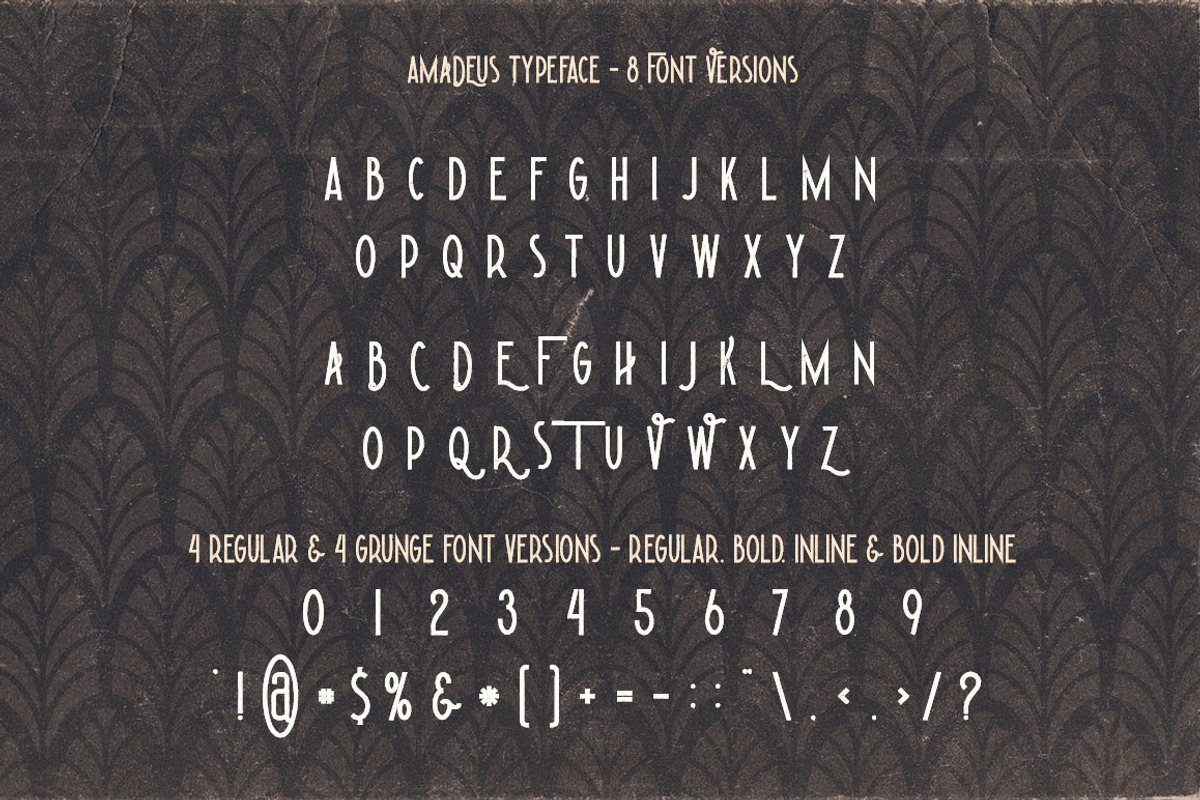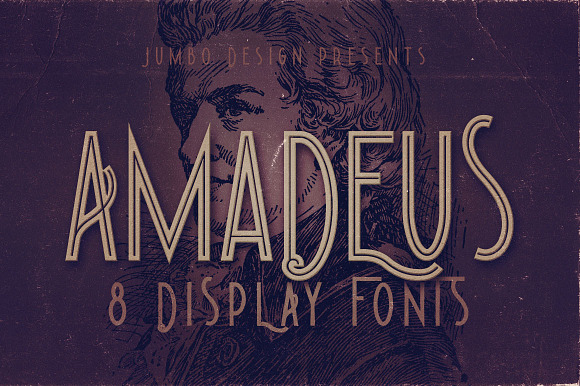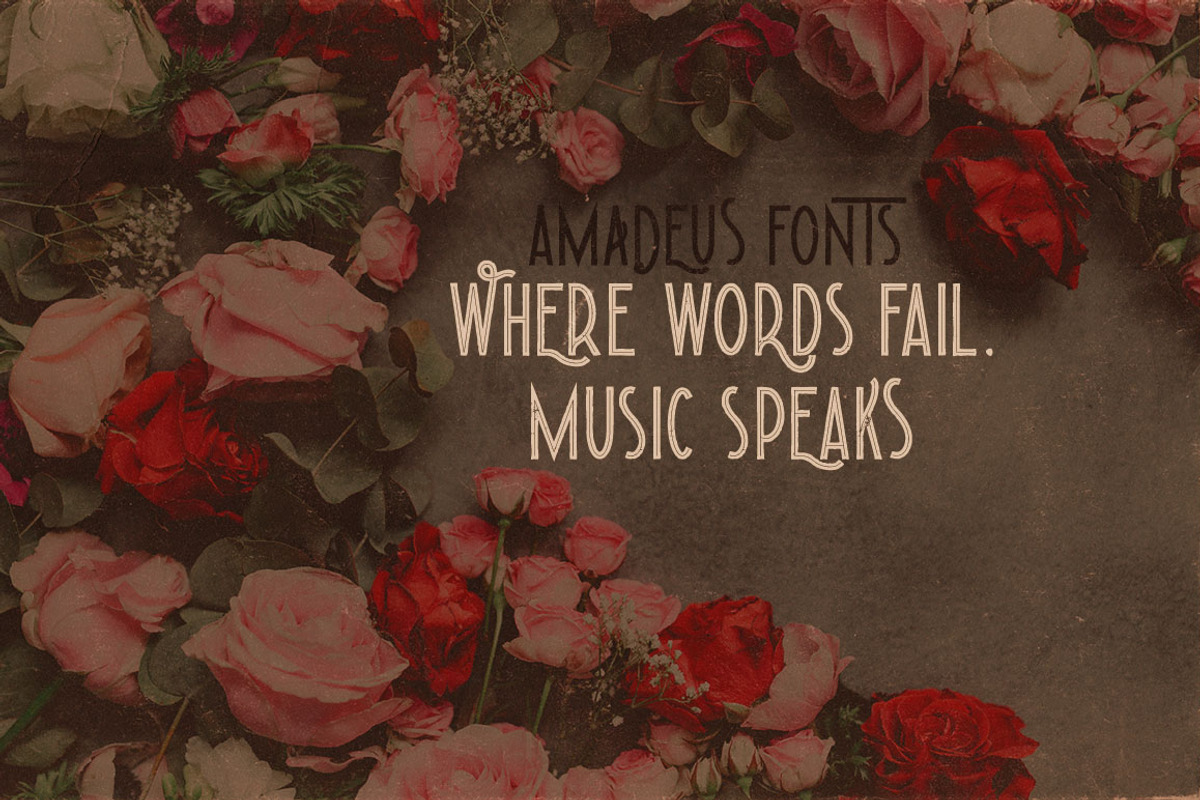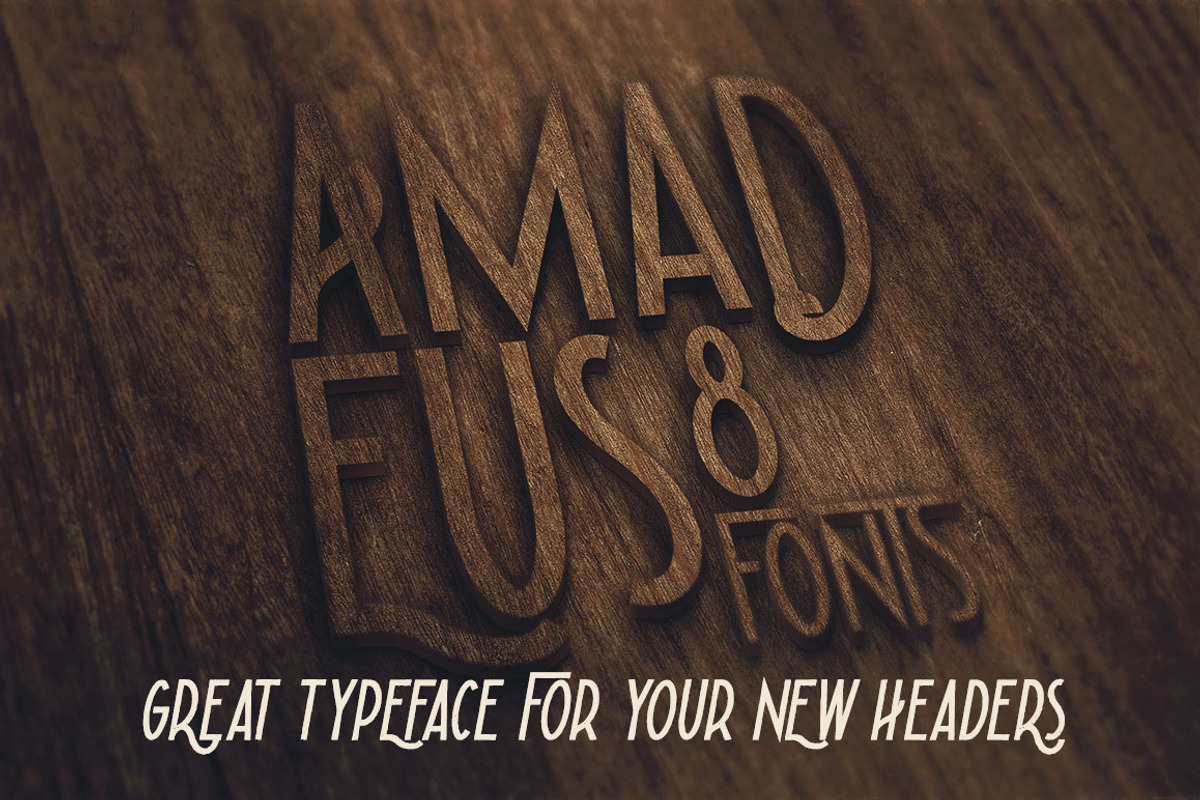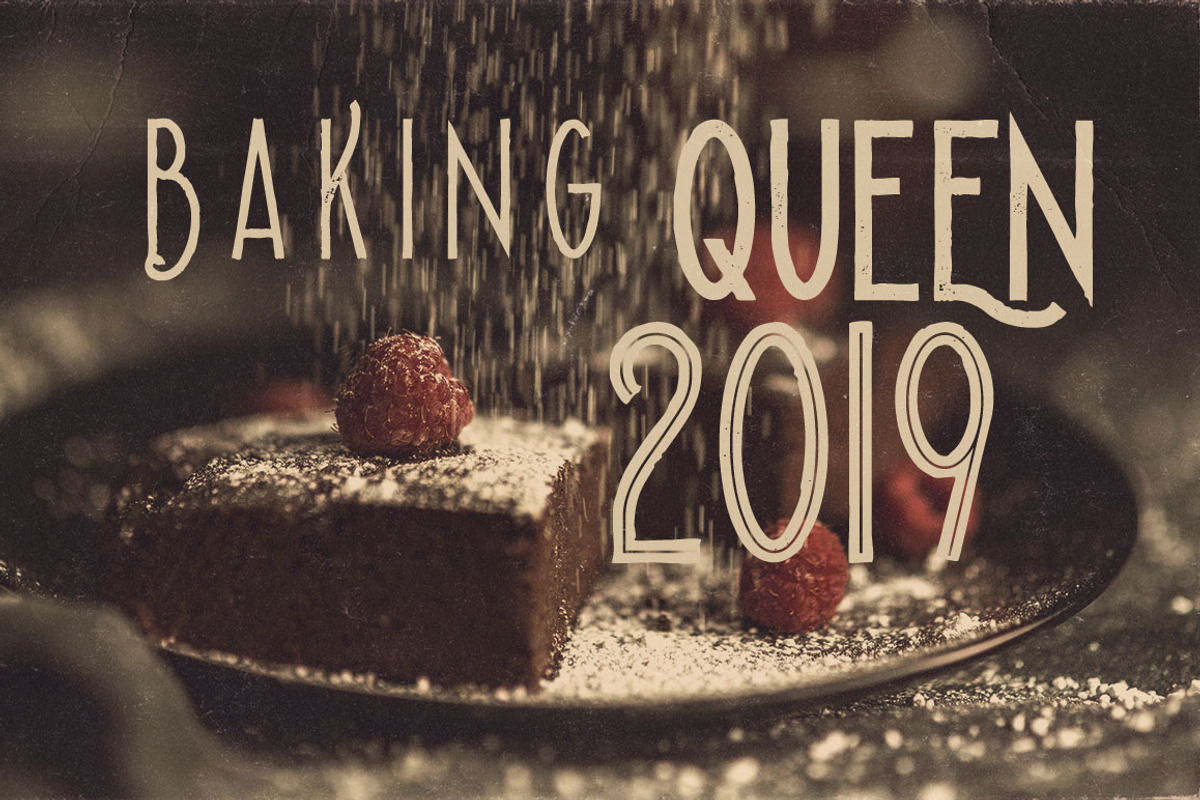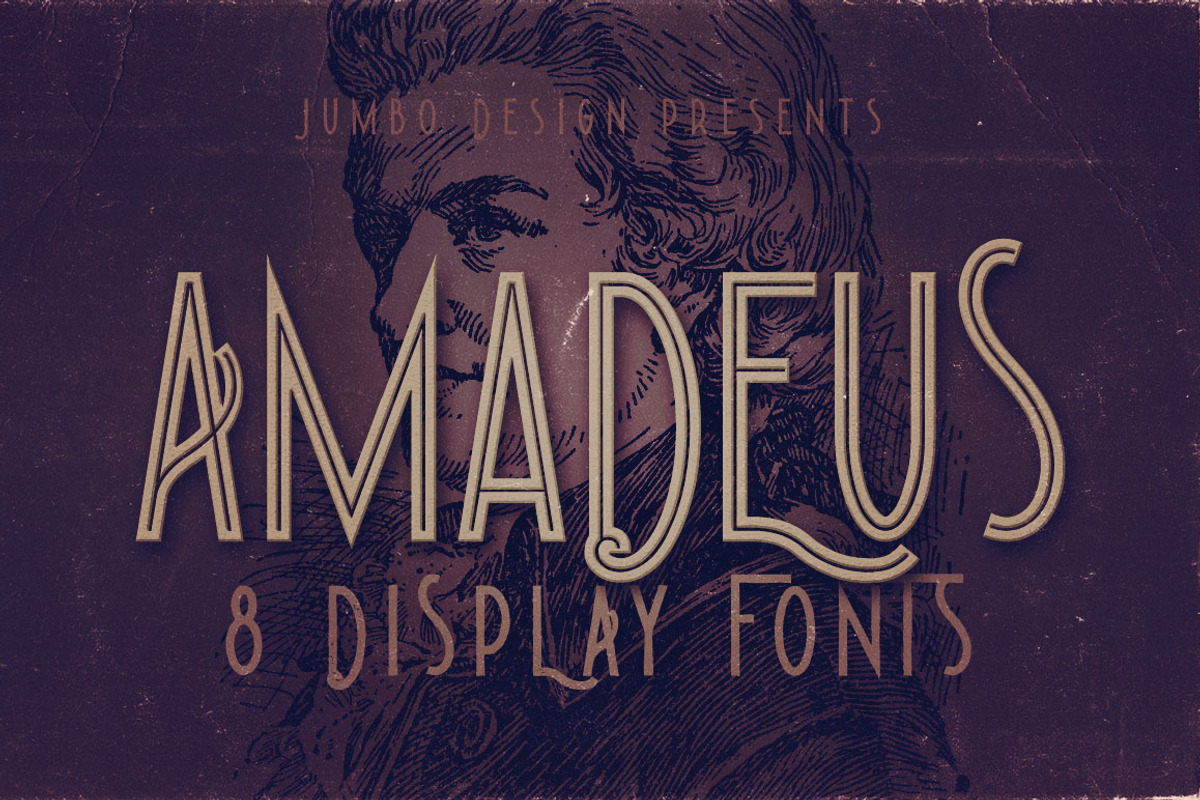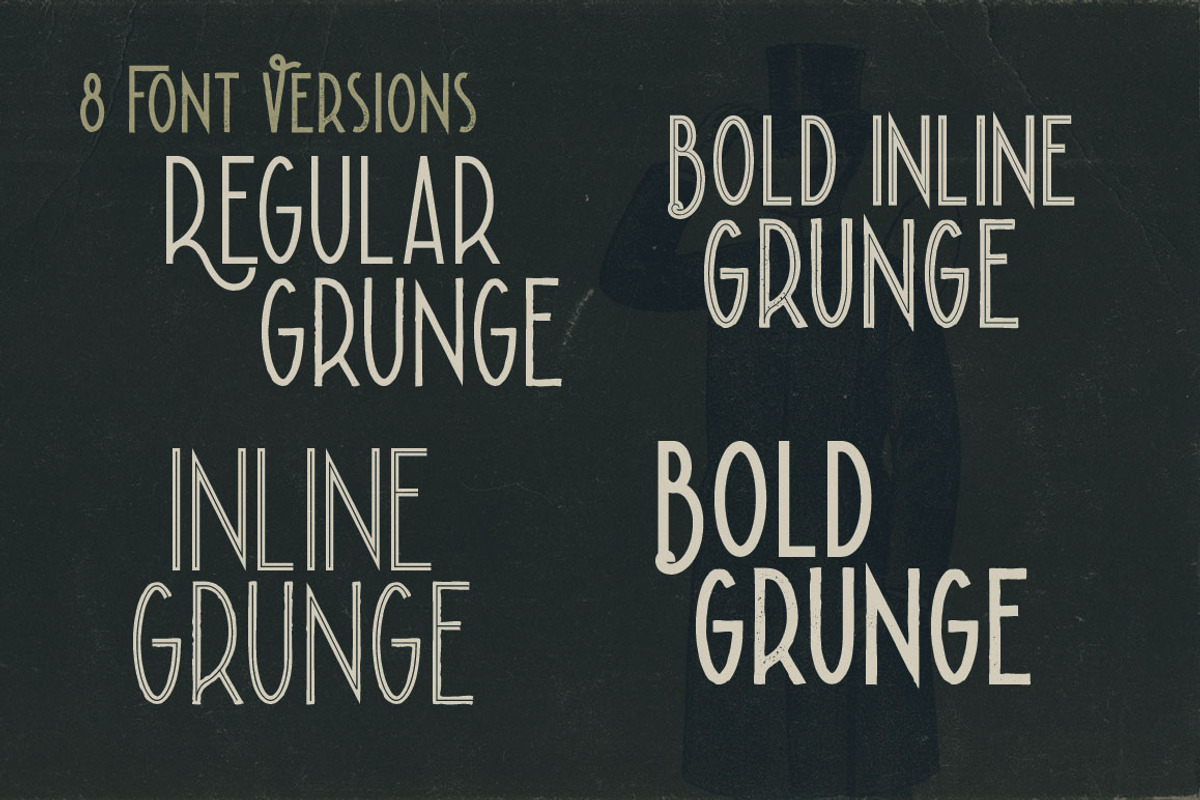
Amadeus - Display Font
Unique vintage & grunge style custom sans serif font with 8 styles: regular and grunge, inline and grunge, bold & grunge, bold inline & grunge.
Amadeus - Display Font by JumboDesign fits naturally into Branding, posters, packaging, typography.